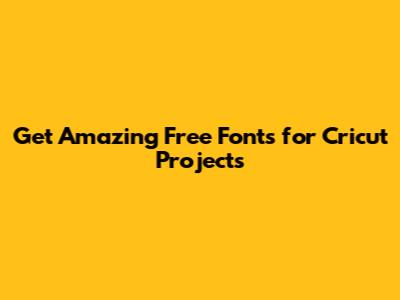
Hey crafters, let's talk about something super exciting: free fonts for your Cricut projects! You know that feeling when you've got a brilliant idea for a t-shirt, a mug, or a personalized gift, but you're stuck with the same old fonts? It can really put a damper on your creative flow, right? Well, guess what? You don't have to spend a fortune to get gorgeous, unique lettering for your Cricut creations. There's a whole world of fantastic free fonts out there just waiting for you to discover them! In this article, we're diving deep into how you can snag these gems and elevate your crafting game without breaking the bank. We'll cover where to find them, what to look out for, and how to easily install them so you can start cutting those amazing designs in no time. Get ready to fill your font library with some seriously cool typefaces that will make your Cricut projects pop!
Where to Find Awesome Free Fonts for Cricut
So, you're on the hunt for free fonts for Cricut, and you're wondering where on earth to find them. Don't worry, guys, I've got you covered! There are tons of amazing resources online where you can download high-quality fonts absolutely free. One of the best places to start is Google Fonts. It's a massive library of open-source fonts, all free to use for personal and commercial projects. You can preview them right on the site, and they're generally super easy to install. Another go-to spot is DaFont.com. This site has an enormous collection, categorized by style, which makes browsing a breeze. Just be sure to check the license – most are free for personal use, which is perfect for your home Cricut projects. Font Squirrel is another fantastic resource that offers a curated selection of free fonts that are also commercially licensed, meaning you can even sell items with these fonts on them. How cool is that? For something a little more unique, you might want to explore sites like Creative Market or FontBundles.net, which often have free font bundles or daily freebies. You just need to sign up (usually for free!) to snag them. Remember, when you're downloading, always look for fonts that are compatible with your Cricut software. Most standard font formats like TTF (TrueType Font) and OTF (OpenType Font) work perfectly. Avoid anything too obscure or overly complex, as your Cricut might struggle to read or cut it accurately. Happy hunting, and get ready to discover some truly stunning typefaces that will make your next Cricut project unforgettable!
Tips for Choosing the Best Fonts for Your Cricut Projects
Finding the perfect typography can seriously elevate your free fonts for Cricut projects from good to amazing. But with so many options out there, how do you choose the best ones? Here are some pro tips to guide you. First off, readability is key. Especially for smaller projects or items that will be viewed from a distance, you want a font that's easy to read. Super thin, scripty, or overly decorative fonts might look cool, but they can become a jumbled mess when cut small. Think about the purpose of your project. A bold, blocky font might be perfect for a "Dad" t-shirt, while an elegant script font could be ideal for a wedding sign. Secondly, consider the complexity. Cricut machines work best with clean lines. Fonts with too many thin lines, sharp points, or intricate details can be difficult for the blade to cut precisely, potentially leading to frustration and ruined material. Always preview your font in Design Space at the size you intend to cut it. This gives you a realistic idea of how it will turn out. Thirdly, think about the style and theme. Does the font match the vibe of your project? A whimsical font for a child's birthday invitation? A classic serif font for a vintage-inspired design? Matching the font to the theme ties everything together beautifully. Lastly, don't be afraid to experiment with font pairings. Combining a script font with a sans-serif font, or a bold display font with a simple body font, can create a really dynamic and professional look. Just ensure they complement each other and don't clash. By keeping these tips in mind, you'll be able to select free fonts for Cricut that not only look fantastic but also cut like a dream, ensuring your finished projects are absolutely stunning!
Working with Script Fonts in Cricut Design Space
Ah, script fonts for Cricut – they add such an elegant and personal touch to so many projects, don't they? Think wedding invitations, personalized gifts, or beautiful wall art. However, working with script fonts can sometimes feel a bit tricky, especially when you're trying to get those letters to connect perfectly. The main challenge is that when you type out a word using a script font, the letters often appear spaced out, not joined like they would be if you wrote them by hand. The magic trick to getting them to connect properly in Cricut Design Space is called "Weld." After you've typed out your word or phrase using your chosen script font, you need to adjust the spacing between the letters. You can do this using the "Letter Space" (or "Advanced" and then adjust "Letter Space") tool in the top toolbar. Bring the letters closer together until they overlap slightly. The exact amount of overlap needed depends on the specific font, so you might need to play around with it. Once the letters are overlapping just right, you need to Weld them together. Select the text box, and then click the "Weld" button in the bottom right corner of the Layers panel. Welding fuses the overlapping parts of the letters into one solid shape. This is essential because if you don't weld script fonts, your Cricut will try to cut each letter individually, resulting in awkward gaps between them. Make sure you weld after you're happy with the letter spacing and positioning. Welding is a permanent action, so it's a good idea to duplicate your text box before welding, just in case you need to make changes later. Mastering the Weld function is key to using free fonts for Cricut script styles like a pro!
Elevate Your Creations with the Right Fonts
So there you have it, crafters! We've journeyed through the exciting world of free fonts for Cricut, discovering where to find them, understanding those all-important licenses, and learning how to install and use them like a pro. Remember, the right font can completely transform a project, adding personality, style, and impact. Whether you're aiming for a playful look, an elegant statement, or a bold declaration, there's a perfect typeface out there waiting for you. Don't underestimate the power of typography in your designs! By exploring resources like Google Fonts, DaFont, and Font Squirrel, and by paying attention to font licenses and cut-friendliness, you're setting yourself up for crafting success. Keep experimenting, keep trying new fonts, and most importantly, keep creating! Happy crafting, everyone!